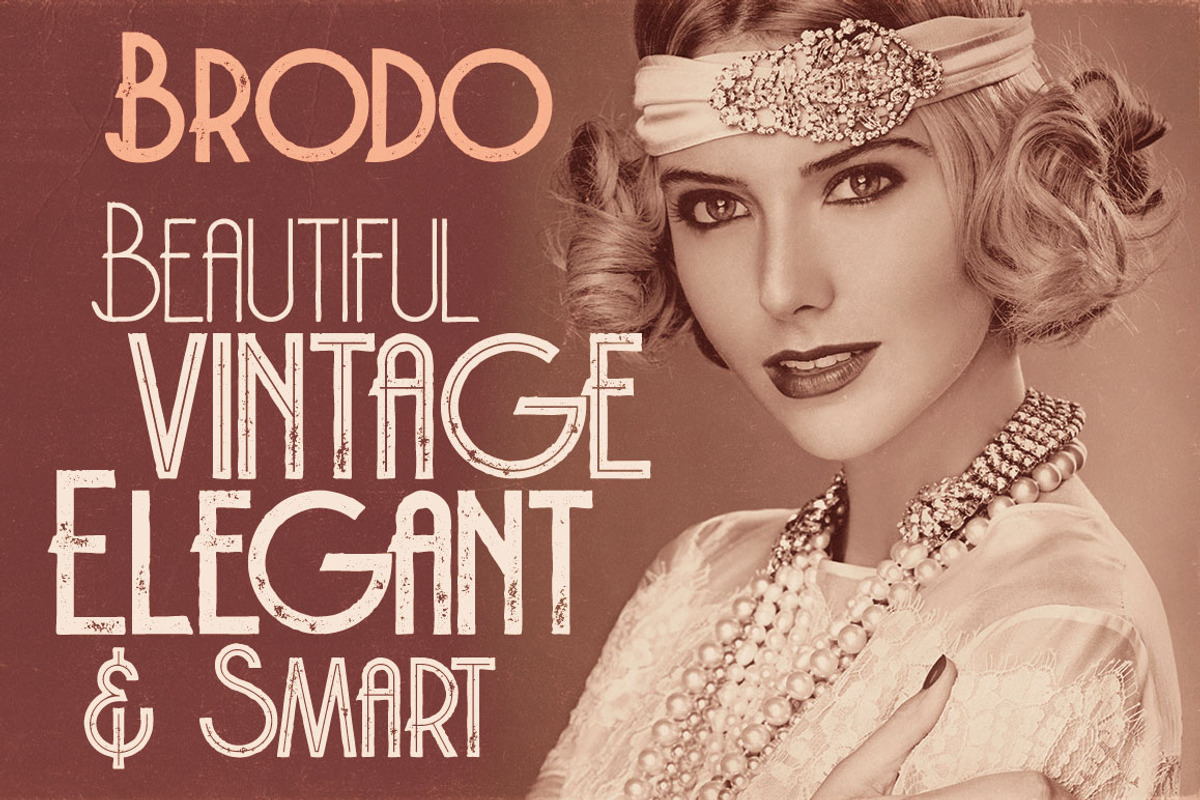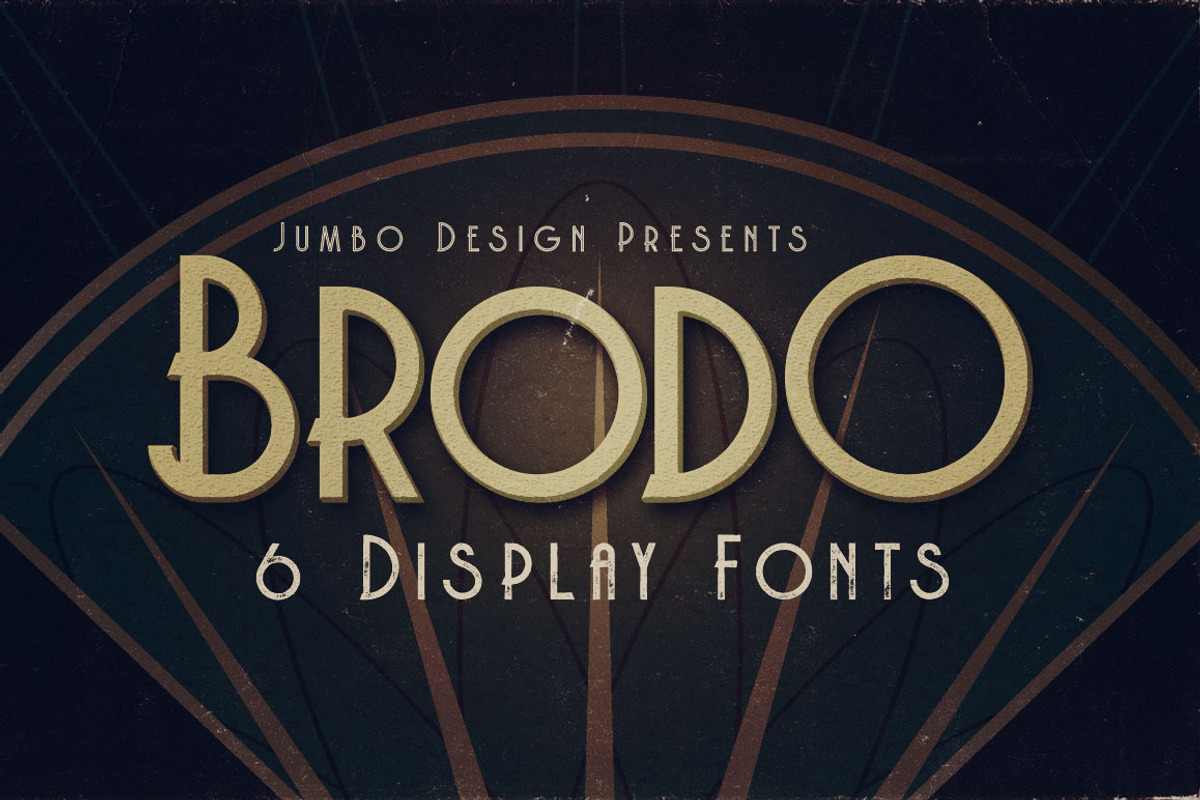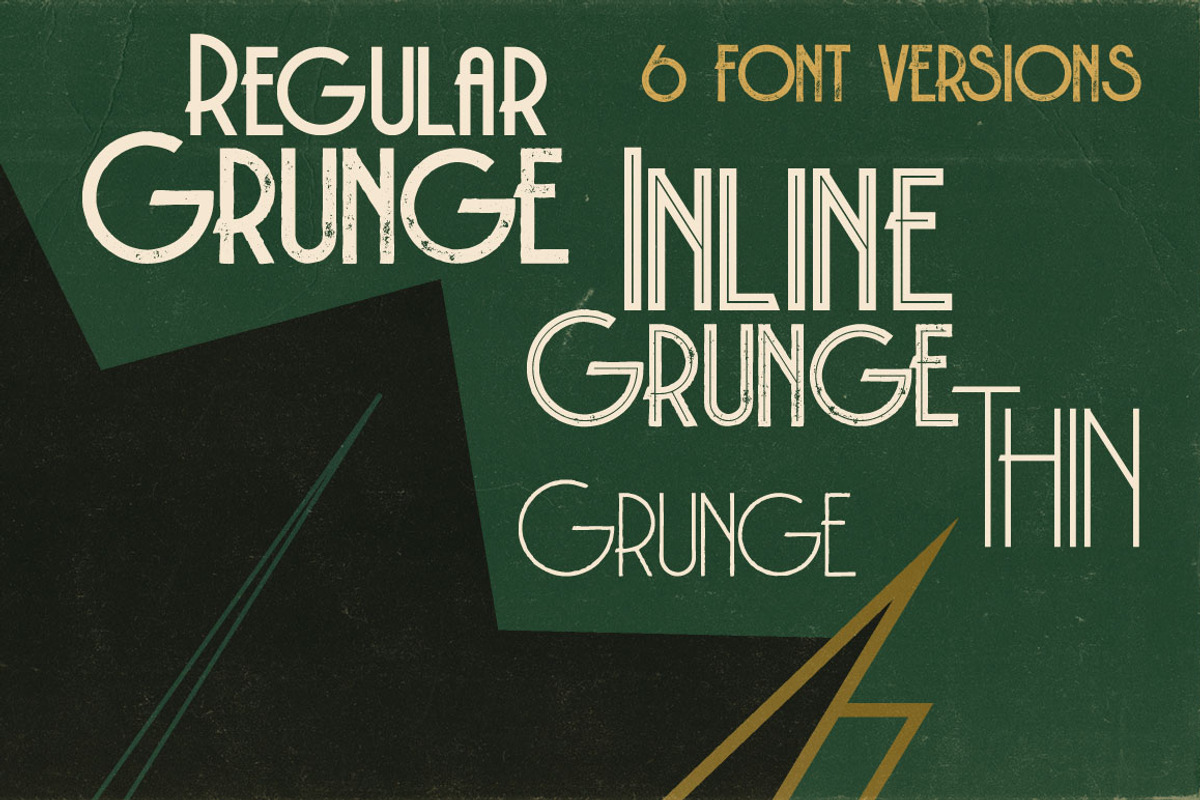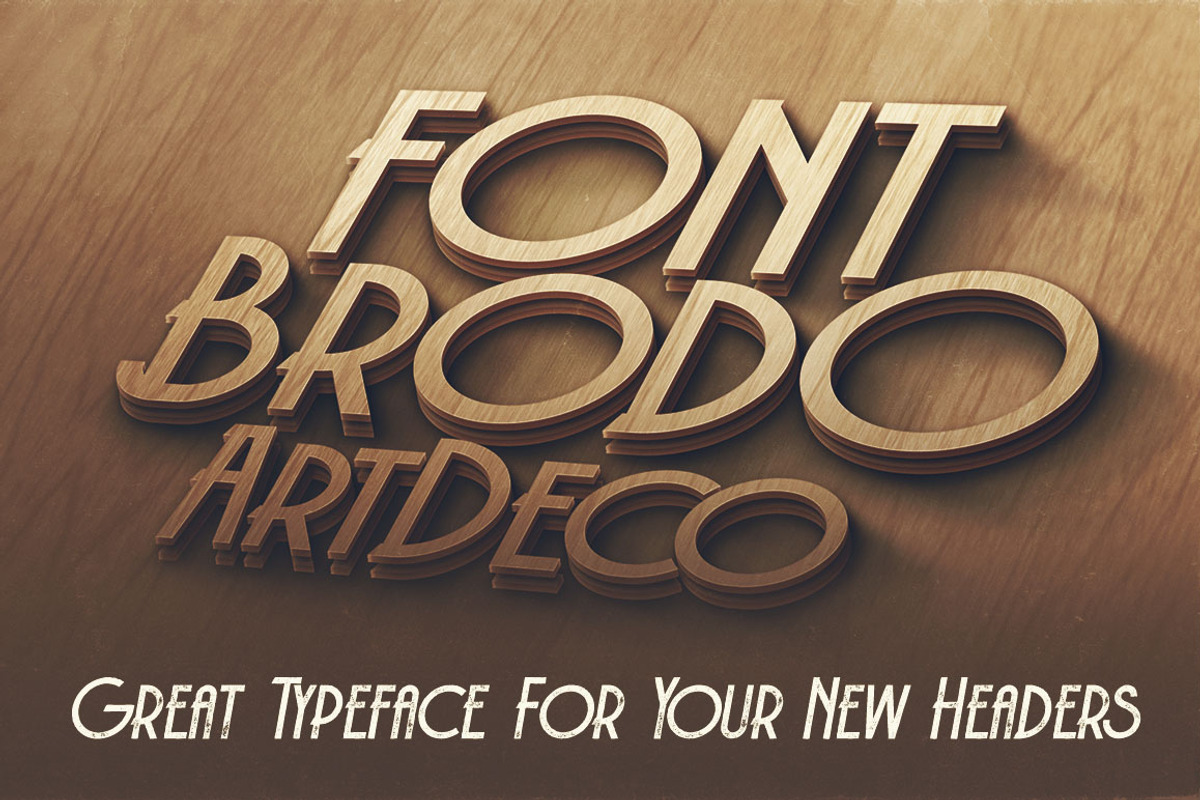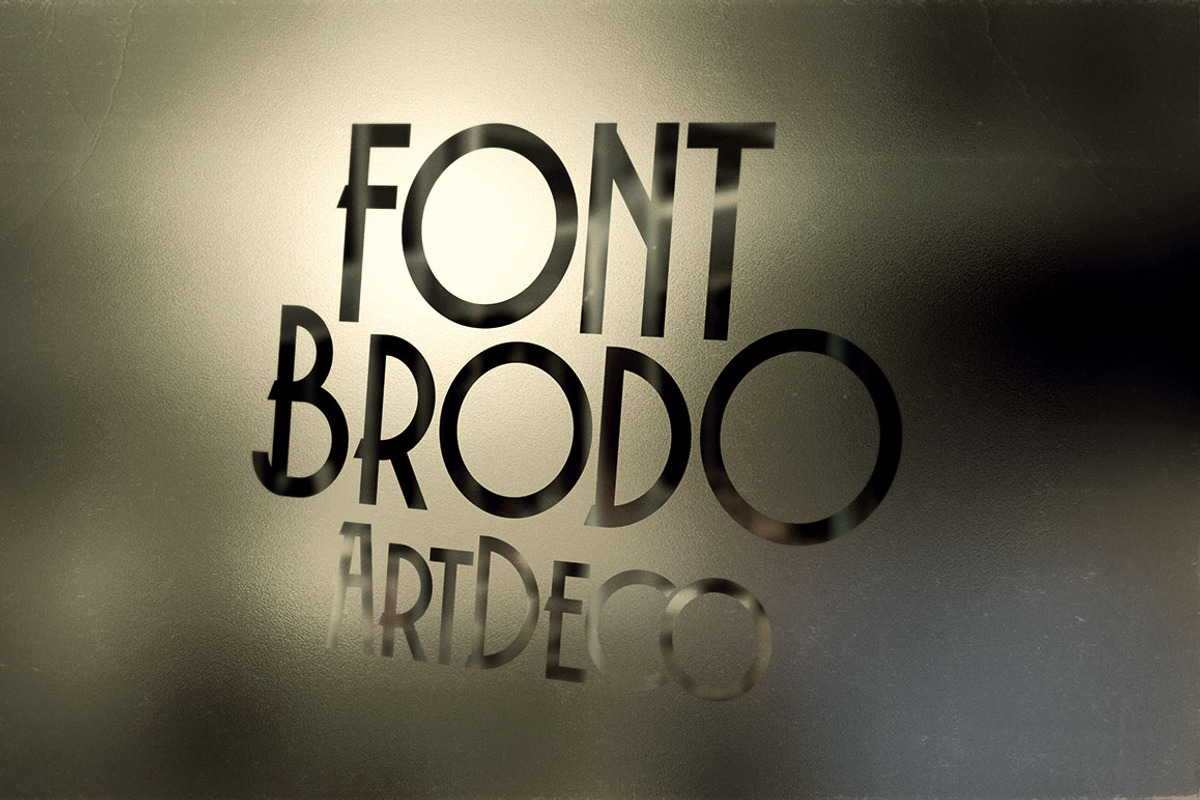
Brodo - Display Font
Unique vintage or artdeco style custom sans serif font with 6 styles: regular and grunge, thin and thin grunge & inline grunge.
Brodo - Display Font by JumboDesign fits naturally into Branding, posters, packaging, typography.